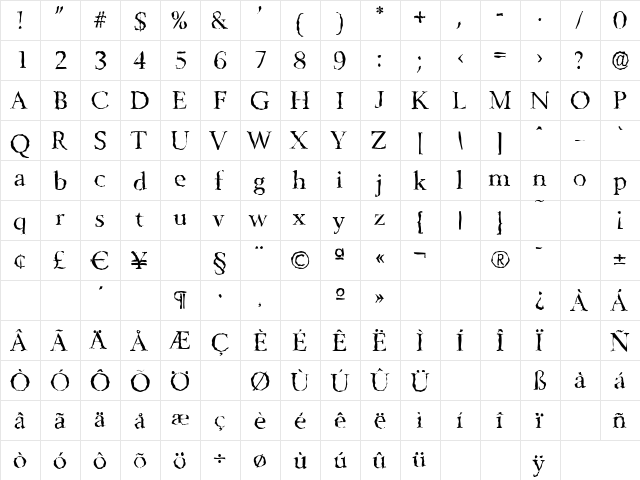
BelfastRandom Regular
Design Context for BelfastRandom Typeface
BelfastRandom is a composed and adaptable typeface that performs quietly and consistently across a wide range of design contexts.